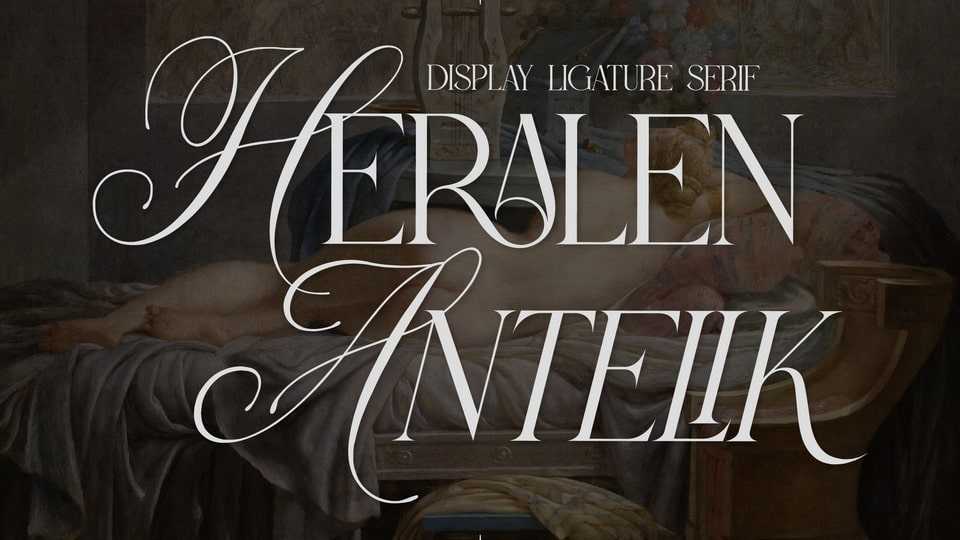
Download Heralen Antelik font, an elegant serif typeface that has own unique style and modern look. Heralen Antelik font is perfect for an elegant and luxury logo, book or movie title design, fashion brand, magazine, clothes, lettering, quotes, and so much more.